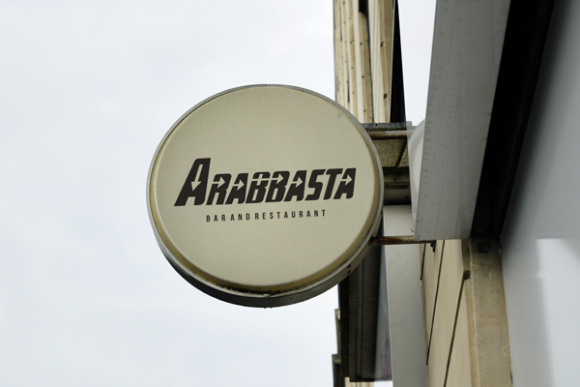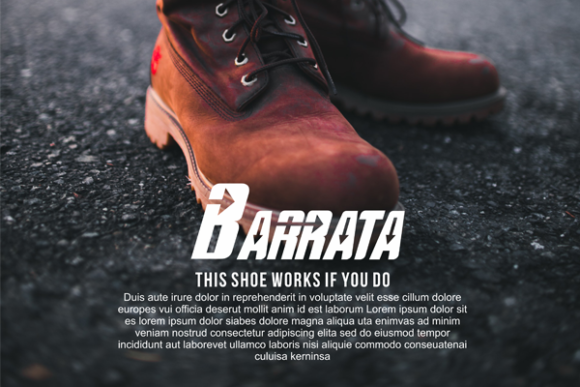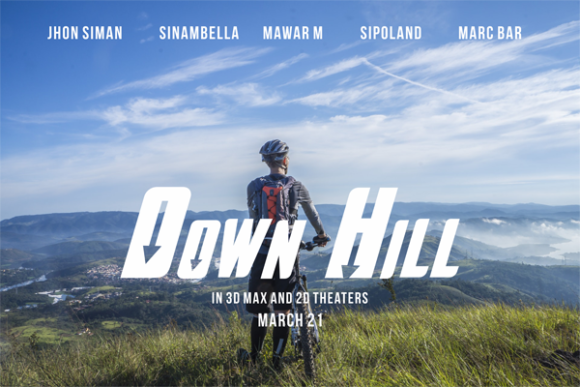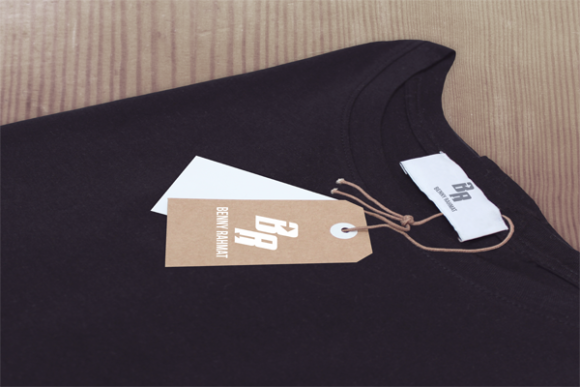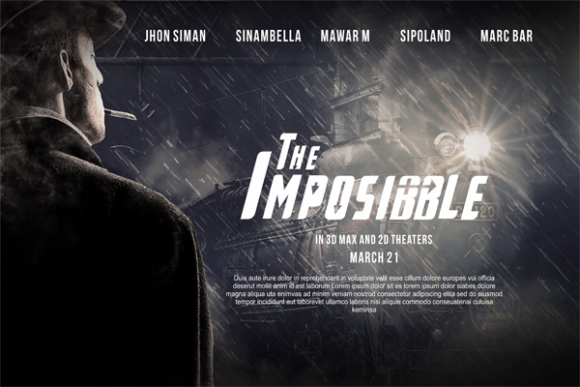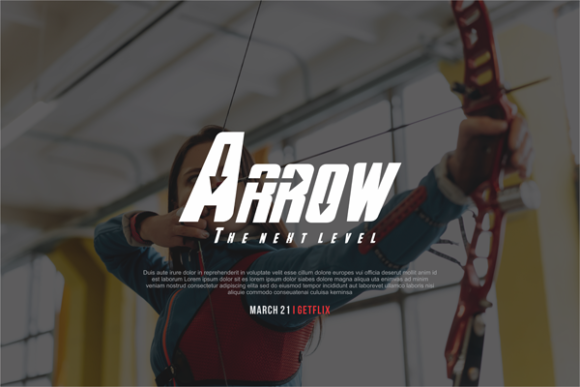
Introducing Arrangers Font: Elevate Your Designs with Endless Possibilities
Are you tired of using the same old fonts in your designs? Look no further! Arrangers Font is here to revolutionize the way you create. This awesome display font is designed to fit perfectly on each of your designs, offering a fresh and exciting way to express your creativity. In this article, we’ll dive into the world of Arrangers Font, exploring its features, benefits, and endless possibilities.
What is Arrangers Font?
Arrangers Font is a stunning display font that boasts a unique and captivating style. Its elegant and sophisticated design makes it perfect for a wide range of projects, from branding and advertising to packaging and digital media. Whether you’re a designer, craftsperson, or simply a creative enthusiast, Arrangers Font is sure to impress.
Key Features of Arrangers Font
- Unique and Eye-Catching Design: Arrangers Font features a distinctive and stylish design that will instantly elevate your designs.
- Endless Variations: With Arrangers Font, you can experiment with countless variations, ensuring your designs always stand out.
- High-Quality and Scalable: This font is designed to be high-quality and scalable, making it perfect for both print and digital applications.
- Easily Customizable: Arrangers Font is easy to customize, allowing you to tailor it to your specific design needs.
Benefits of Using Arrangers Font
So, why choose Arrangers Font for your designs? Here are just a few benefits you can expect:
- Enhance Your Brand’s Visual Identity: With Arrangers Font, you can create a unique and memorable visual identity for your brand.
- Stand Out from the Crowd: This font’s distinctive design ensures your designs will stand out in a crowded market.
- Boost Creativity: Arrangers Font’s endless variations will inspire you to experiment and try new things.
- Save Time and Effort: With Arrangers Font, you can quickly and easily create stunning designs without spending hours searching for the perfect font.
Arrangers Font is an ideal choice for designers and crafters looking to add a touch of elegance and sophistication to their work. Whether you’re creating:
- Business Cards and Brochures: Arrangers Font is perfect for creating professional and eye-catching marketing materials.
- Social Media Graphics: This font will help your social media graphics stand out and grab attention.
- Packaging and Labels: Arrangers Font is a great choice for creating eye-catching packaging and labels.
- Digital Media and Web Design: This font is optimized for digital use, making it perfect for websites, blogs, and more.
Get Creative with Arrangers Font
With Arrangers Font, the possibilities are endless! Here are some ideas to get you started:
- Experiment with Different Colors and Textures: Try pairing Arrangers Font with different colors and textures to create unique and eye-catching designs.
- Mix and Match with Other Fonts: Combine Arrangers Font with other fonts to create interesting and dynamic typography.
- Use it for Logos and Branding: Arrangers Font is perfect for creating memorable and impactful logos and branding materials.
In conclusion, Arrangers Font is an incredible display font that offers endless possibilities for designers and crafters. Its unique and eye-catching design, combined with its ease of use and customization options, make it a must-have for anyone looking to elevate their designs. So why wait? Get creative with Arrangers Font today and discover a world of limitless design possibilities!